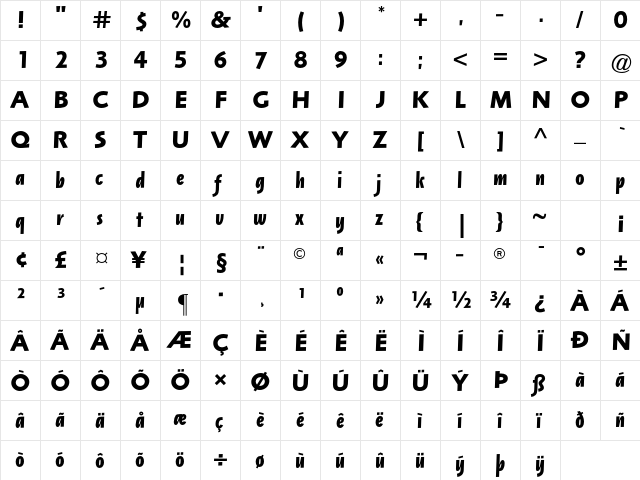
Arta Std Bold Italic
| Designer | David Quay |
Design Context for Arta Std Typeface
Arta Std is a composed and adaptable typeface that performs quietly and consistently across a wide range of design contexts. The slanted form adds forward momentum and visual energy. The heavy weight commands attention and anchors typographic hierarchies.
Pro Tip: Try Arta Std for annotation and caption copy alongside an upright companion — the contrast in angle creates a dynamic but ordered typographic system.